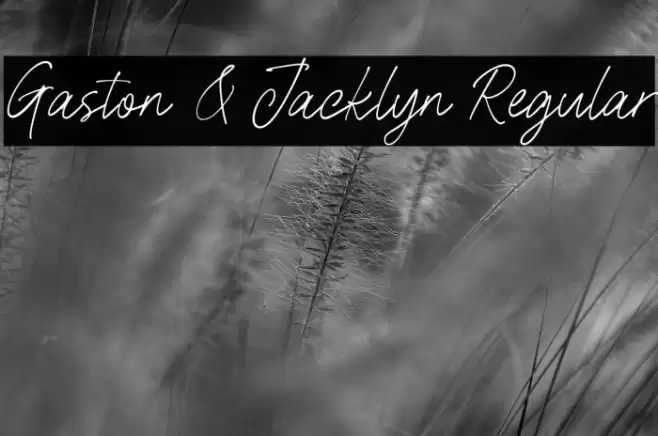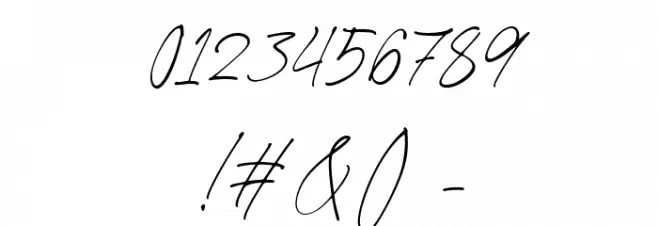
Gaston & Jacklyn Regular Font
Gaston & Jacklyn Regular Description
This font exudes a casual elegance with its fluid, handwritten style. The letters are gracefully connected, giving it a natural and organic flow. The strokes vary in thickness, adding a dynamic and lively feel to the text. It maintains a consistent baseline, enhancing readability while preserving its artistic flair. The uppercase letters are slightly larger and more pronounced, providing a nice contrast to the more delicate lowercase letters. Numbers and special characters are seamlessly integrated, maintaining the overall aesthetic. This font is perfect for projects that require a personal touch, such as invitations, greeting cards, or branding materials.
A fluid, handwritten font with elegant, connected strokes and dynamic thickness from Regular fonts.
- Proposed Projects: Ideal for invitations, greeting cards, personal branding, and artistic projects.
- Use Case: Headlines, Logos, Artistic projects